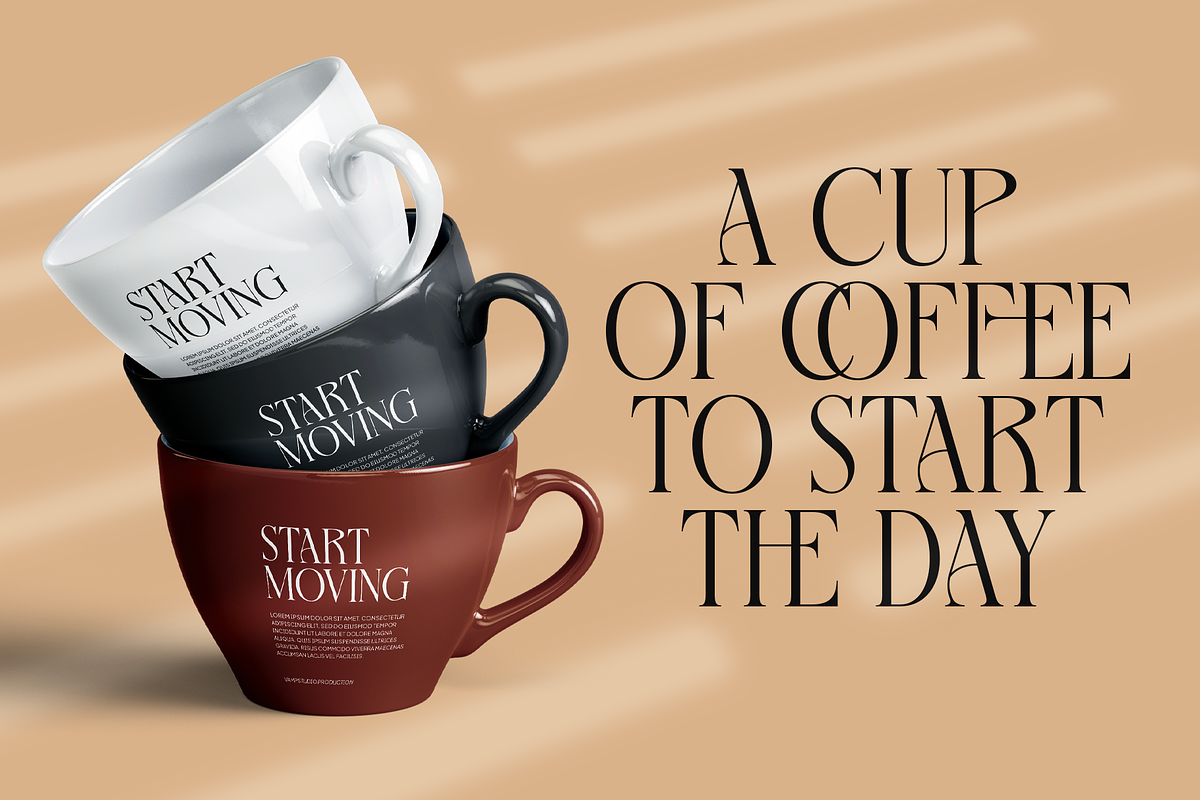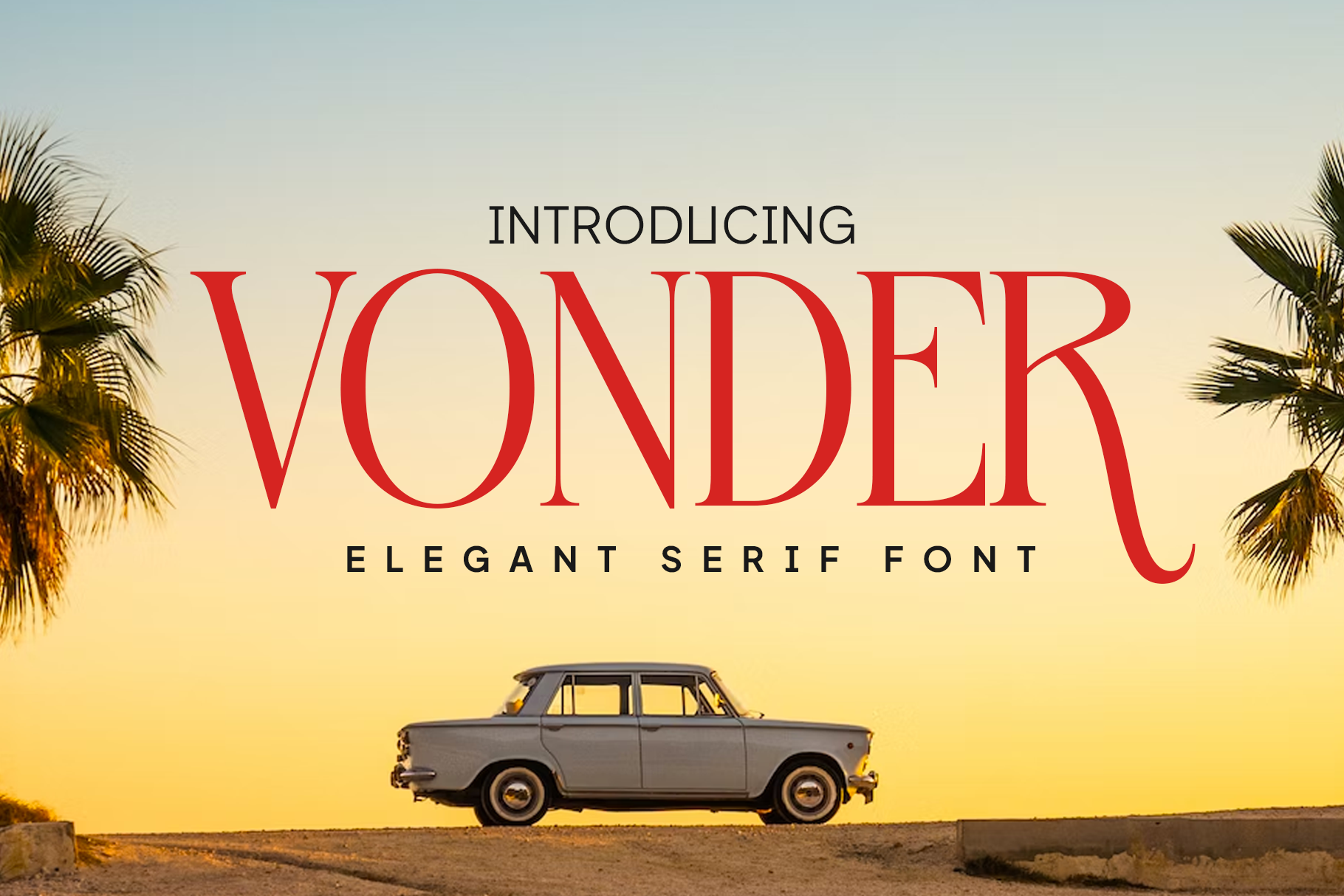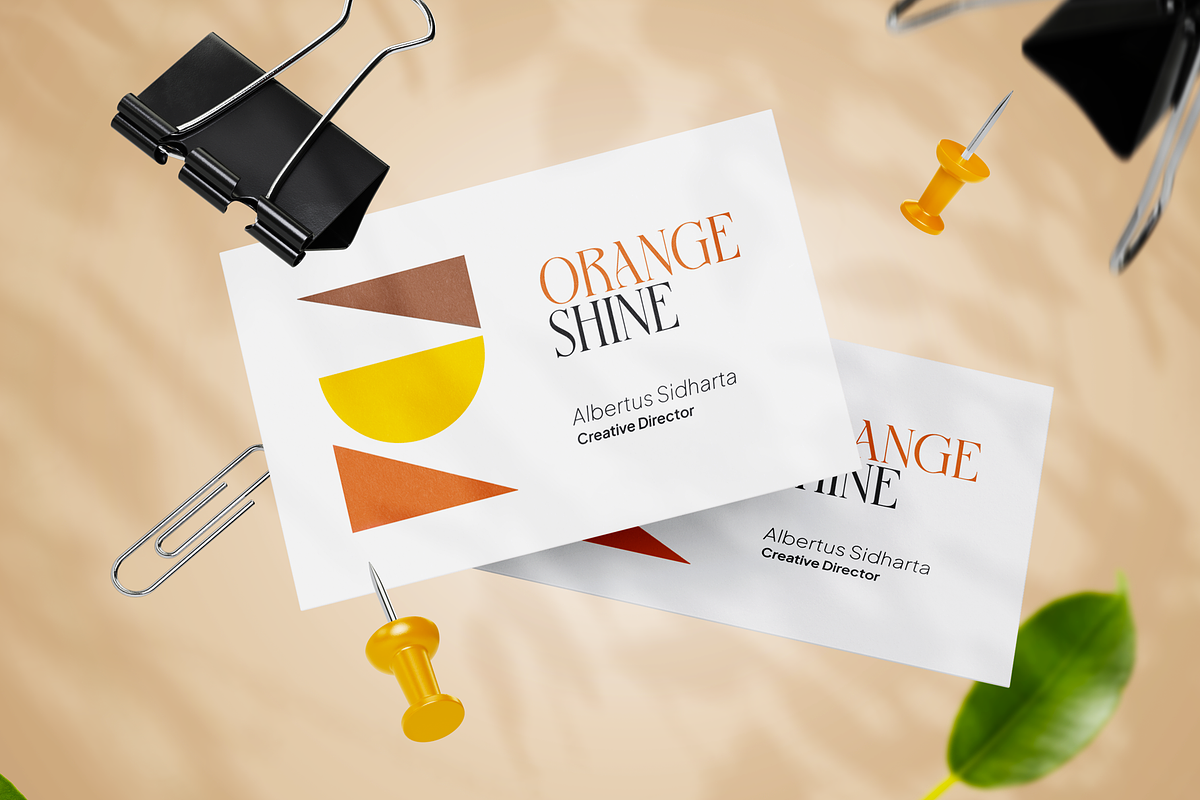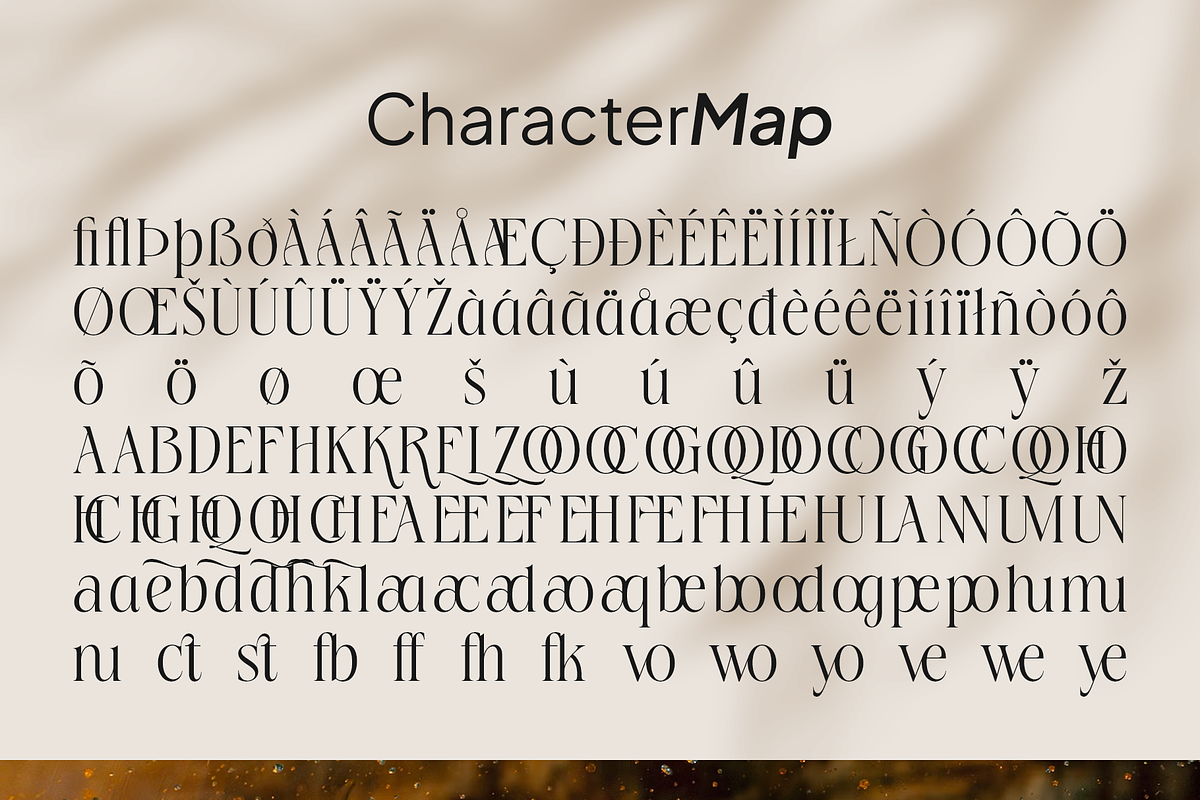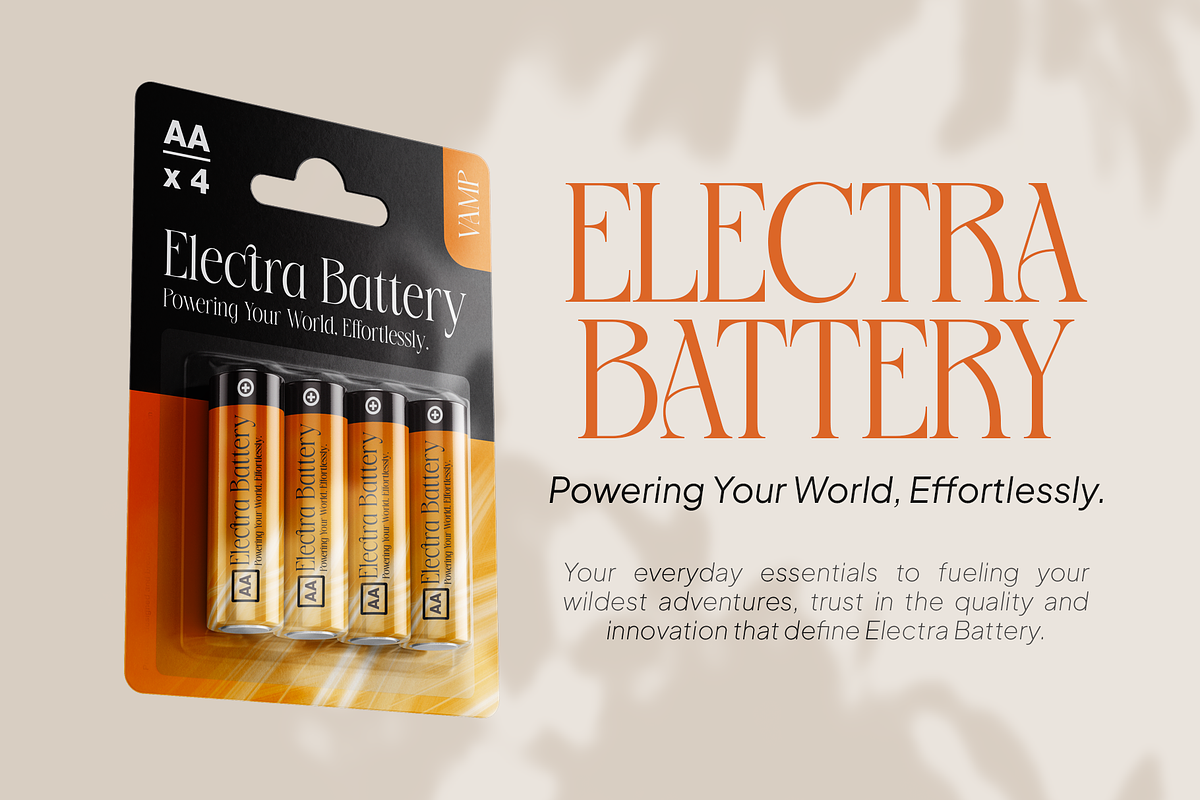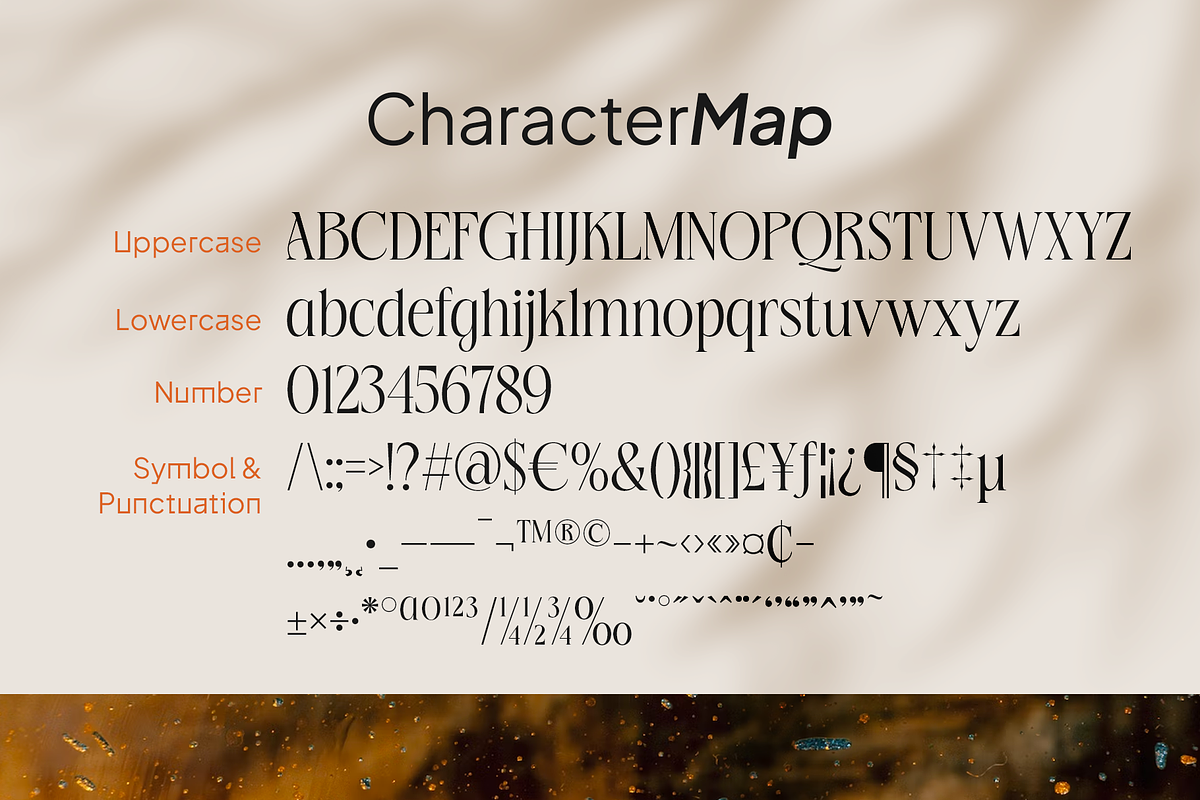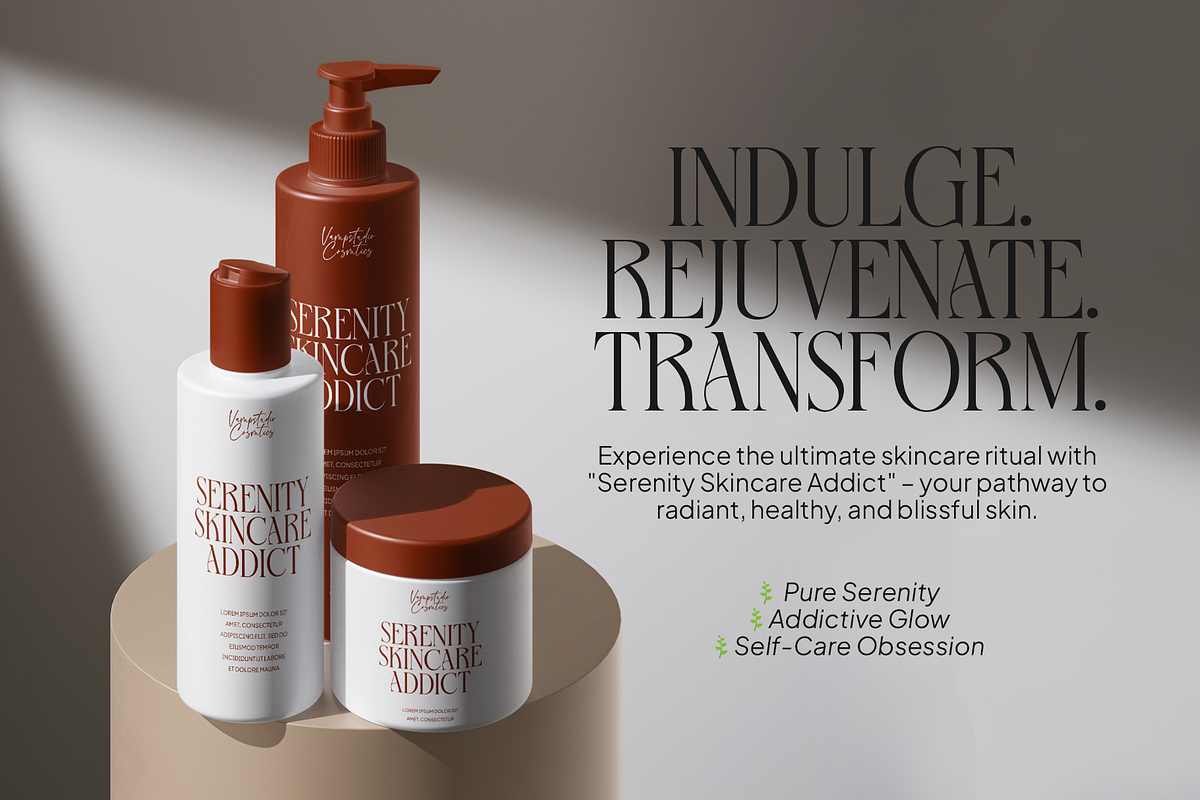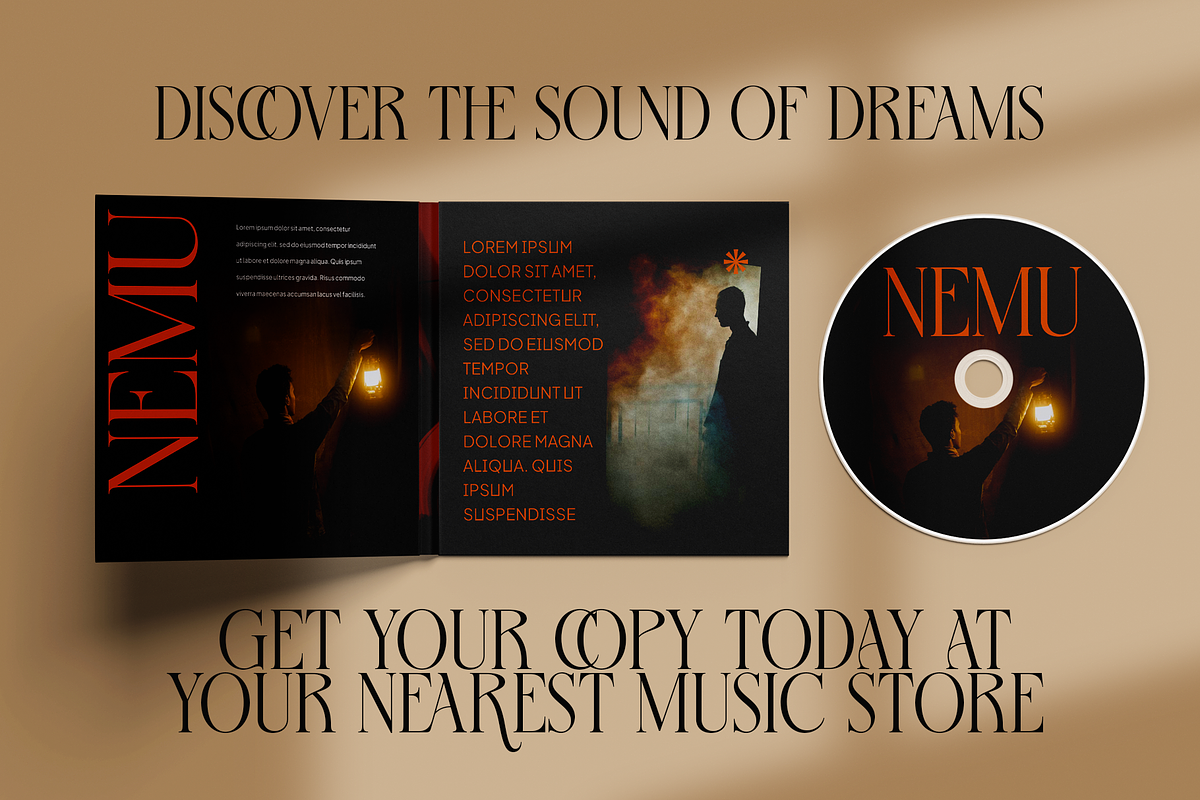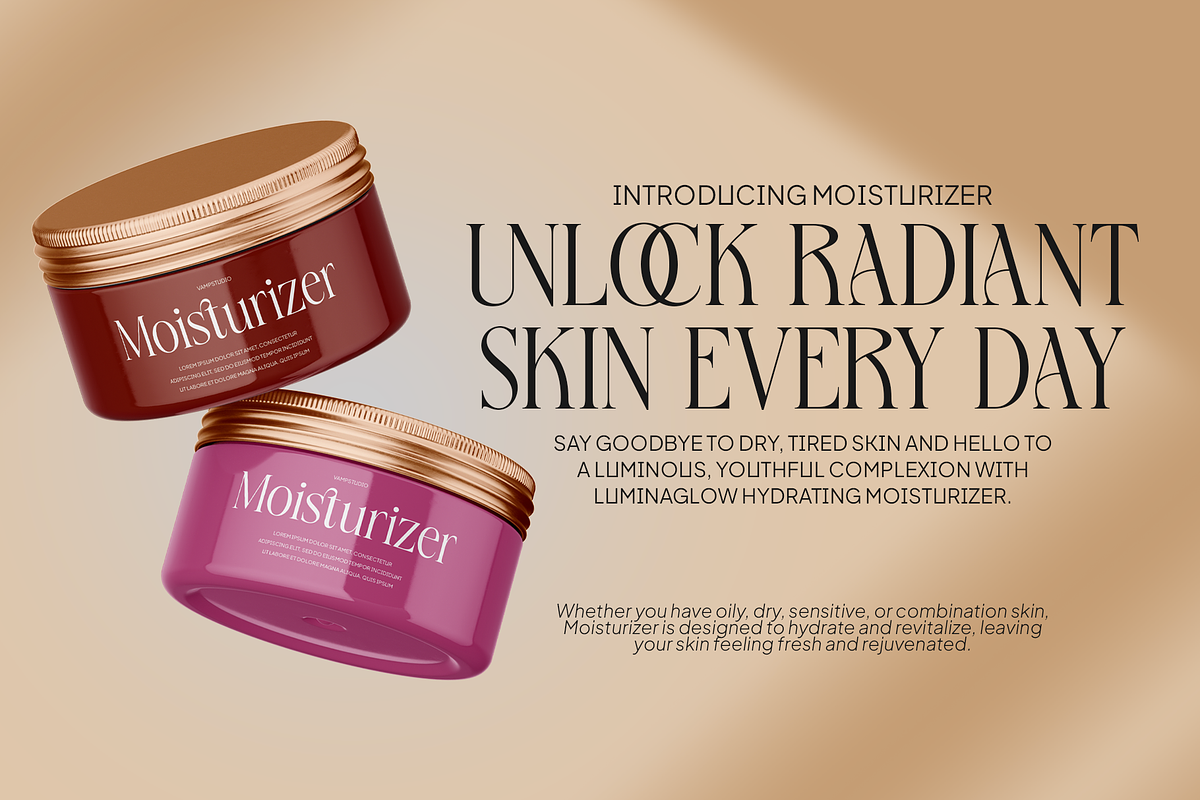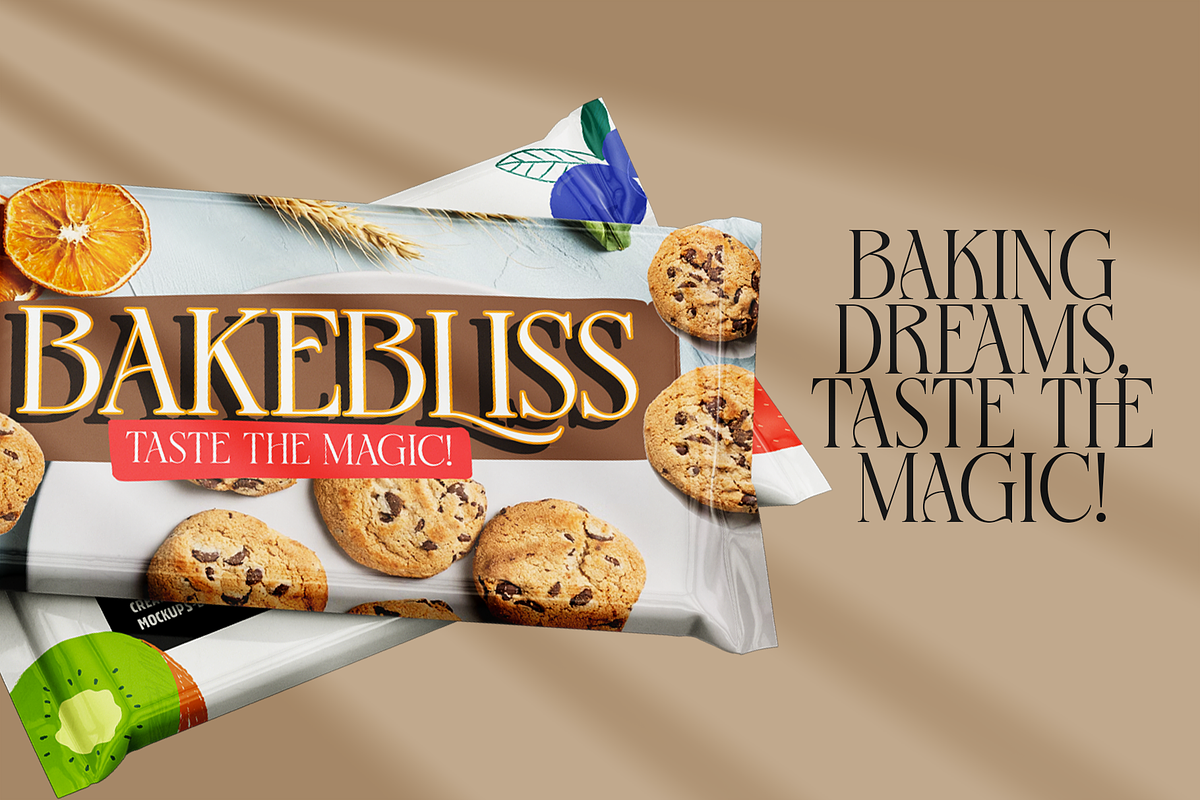
Vonder - Elegant Serif Font
Introducing "Vonder" – Elevate Your Typography Experience with Timeless Elegance!
Are you ready to redefine your visual storytelling? Say hello to "Vonder," our exquisite serif type font meticulously crafted to bring sophistication and charm to your projects.
Immerse yourself in the allure of classical design, where every curve and stroke tells a story of timeless elegance. "Vonder" is more than just a font; it's a journey into the artistry of typography, meticulously designed to capture attention and convey a sense of refined grace
Vonder is perfect for branding projects, logo, wedding designs, social media posts, advertisements, product packaging, product designs, label, photography, watermark, invitation, stationery and any projects that need handwriting taste.